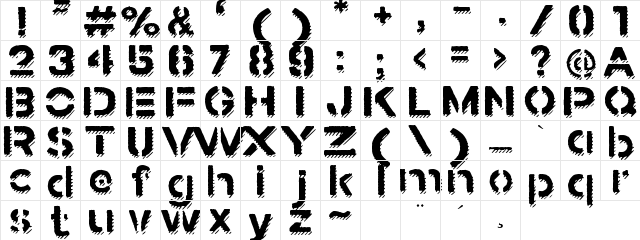
Stamped Navy Font Shadow Regular
Design Context for Stamped Navy Font Shadow Typeface
Stamped Navy Font Shadow has the rough pragmatism of spray-painted stencil signage, adding a raw, street-level authenticity to designs.
A strong choice for packaging that needs edge, warehouse aesthetics, and rough-and-ready visual identities.
Pro Tip: Use Stamped Navy Font Shadow at large sizes on packaging, posters, or apparel where the stencil cutaways read clearly. Avoid small sizes where those gaps become visual noise.